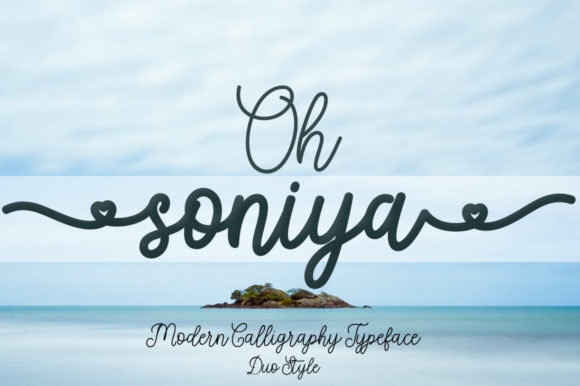
Behold, the captivating Soniya Font! Immerse yourself in a world of graceful curves and elegant swirls as this enchanting script dances across your screen. Crafted by the visionary minds at Greentype, Soniya beckons you to unleash your creativity and transform your designs into captivating works of art.
Escape the mundane and embrace the extraordinary with Soniya Font. Its intricate strokes evoke a sense of whimsy and charm, making it the perfect choice for adding a touch of magic to invitations, branding, and social media posts. The flowing lines and subtle variations in weight create a dynamic and engaging aesthetic that will leave a lasting impression.
Indulge in the versatility of Soniya Font. Its playful nature lends itself effortlessly to a myriad of design projects. Whether you're crafting whimsical posters, heartfelt greeting cards, or eye-catching logos, Soniya Font effortlessly adapts to your creative vision. Experience the joy of seamless integration as it harmoniously complements any design style.
Unleash your inner artist with Soniya Font. Its user-friendly nature empowers you to unleash your creativity without technical limitations. Dive into a world of endless possibilities, where your imagination knows no bounds. With Soniya Font as your trusted companion, you'll discover a newfound passion for design and elevate your projects to new heights of elegance and charm.
Embark on an extraordinary typographic journey with Soniya Font. Let its enchanting curves captivate your audience and transform your designs into unforgettable masterpieces. Embrace the beauty of script and redefine the boundaries of creativity.